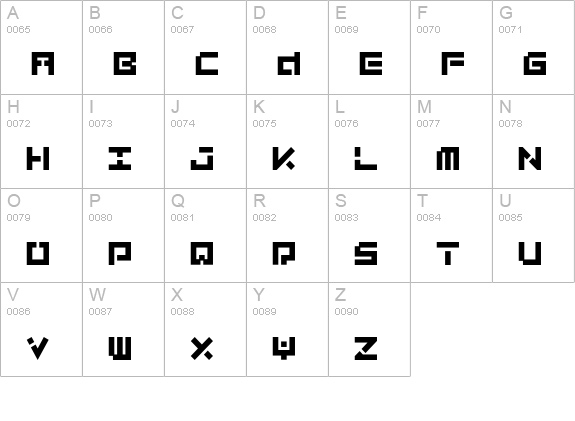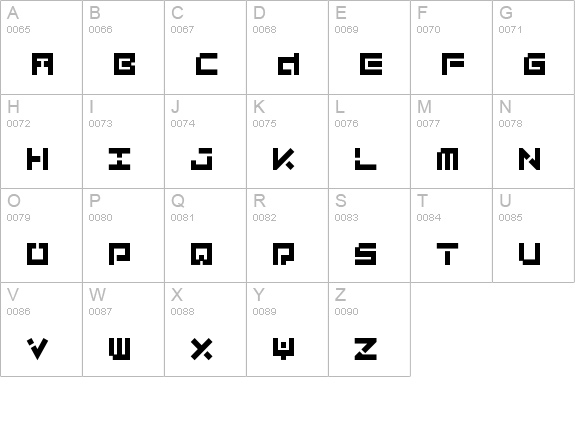
LuggageBrokenHeavy Font Details
LuggageBrokenHeavy font is a unique and eye-catching display typeface that exudes a sense of ruggedness and authenticity. Its broken and heavy design gives it a distinct and edgy look, making it perfect for projects that require a bold and impactful aesthetic. This font is ideal for headlines, posters, branding, and other creative projects that call for a touch of individuality. The LuggageBrokenHeavy font is available for free download at FontsMarket.com, making it easily accessible for designers and creatives looking to add a touch of personality to their work. With its striking appearance and versatility, this font is sure to make a statement and capture the attention of your audience. Download LuggageBrokenHeavy font today and unleash your creativity with this unique typeface.